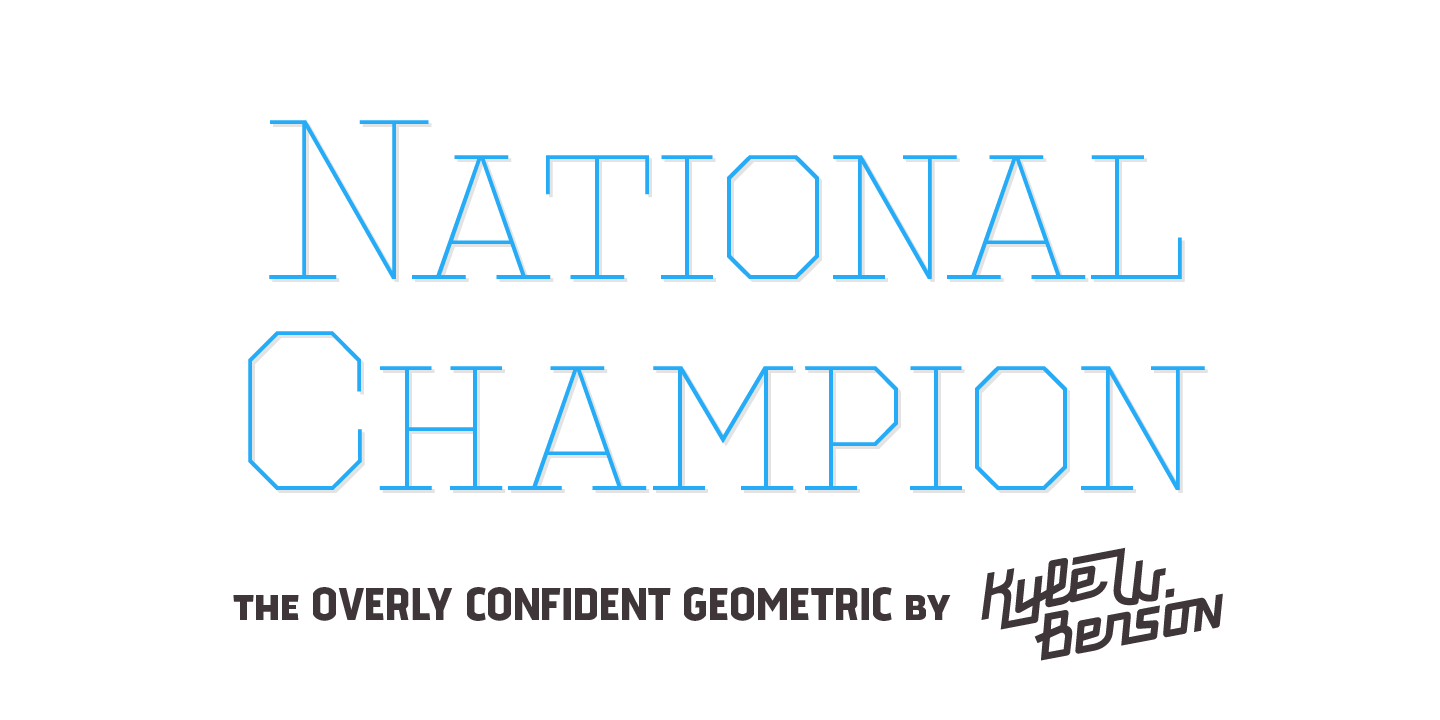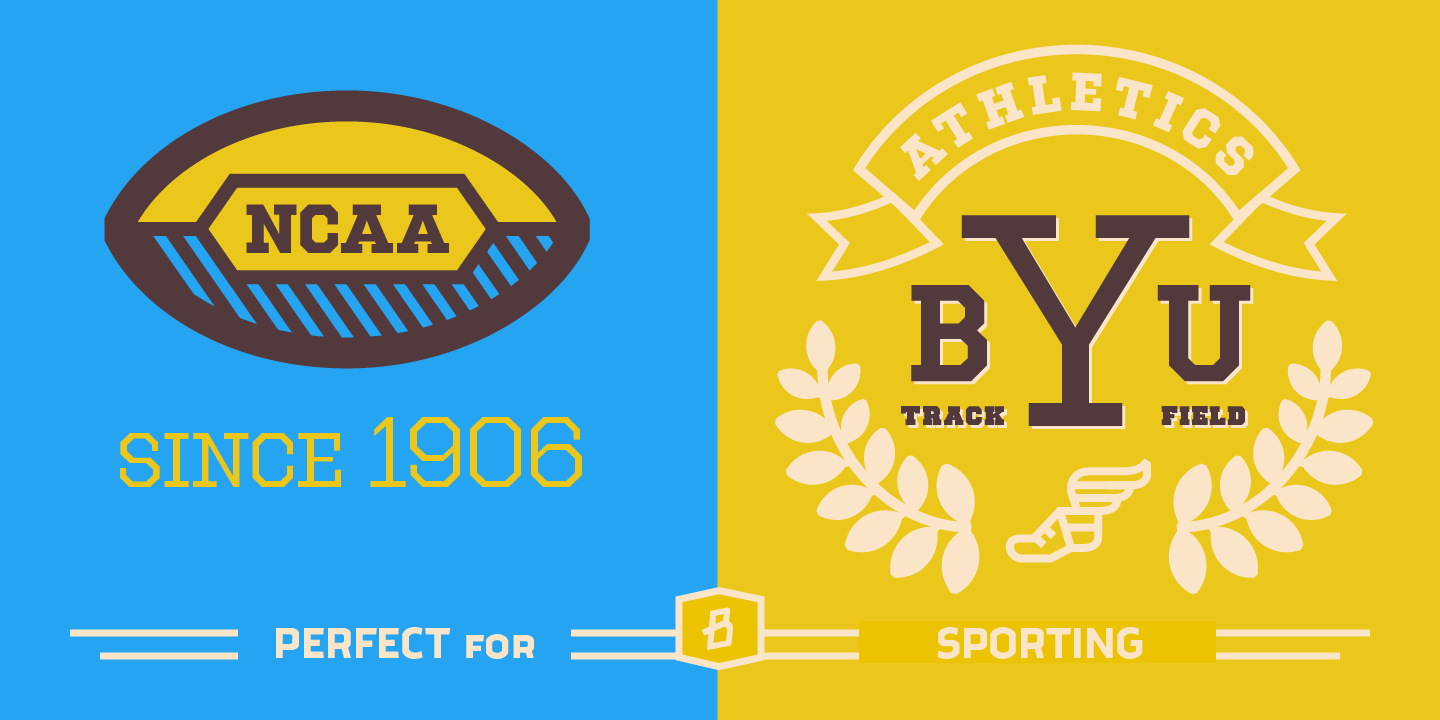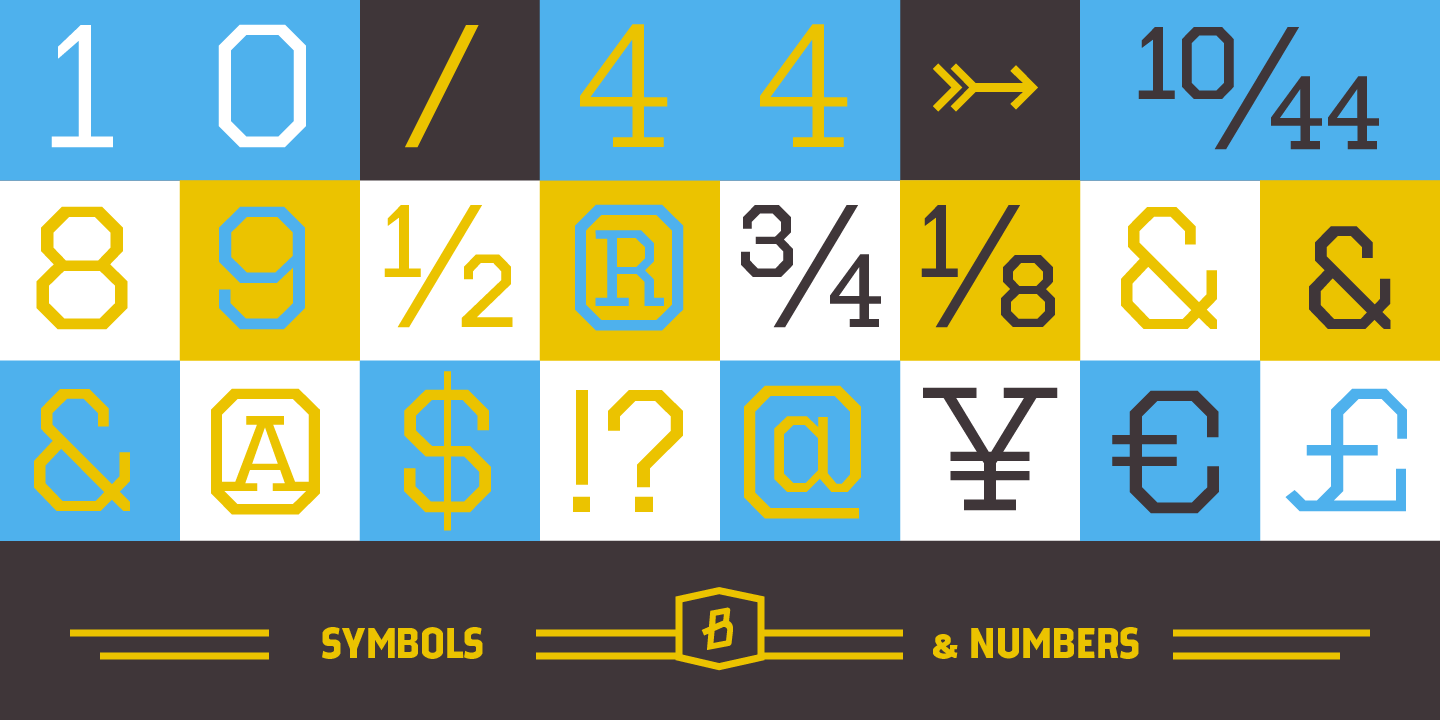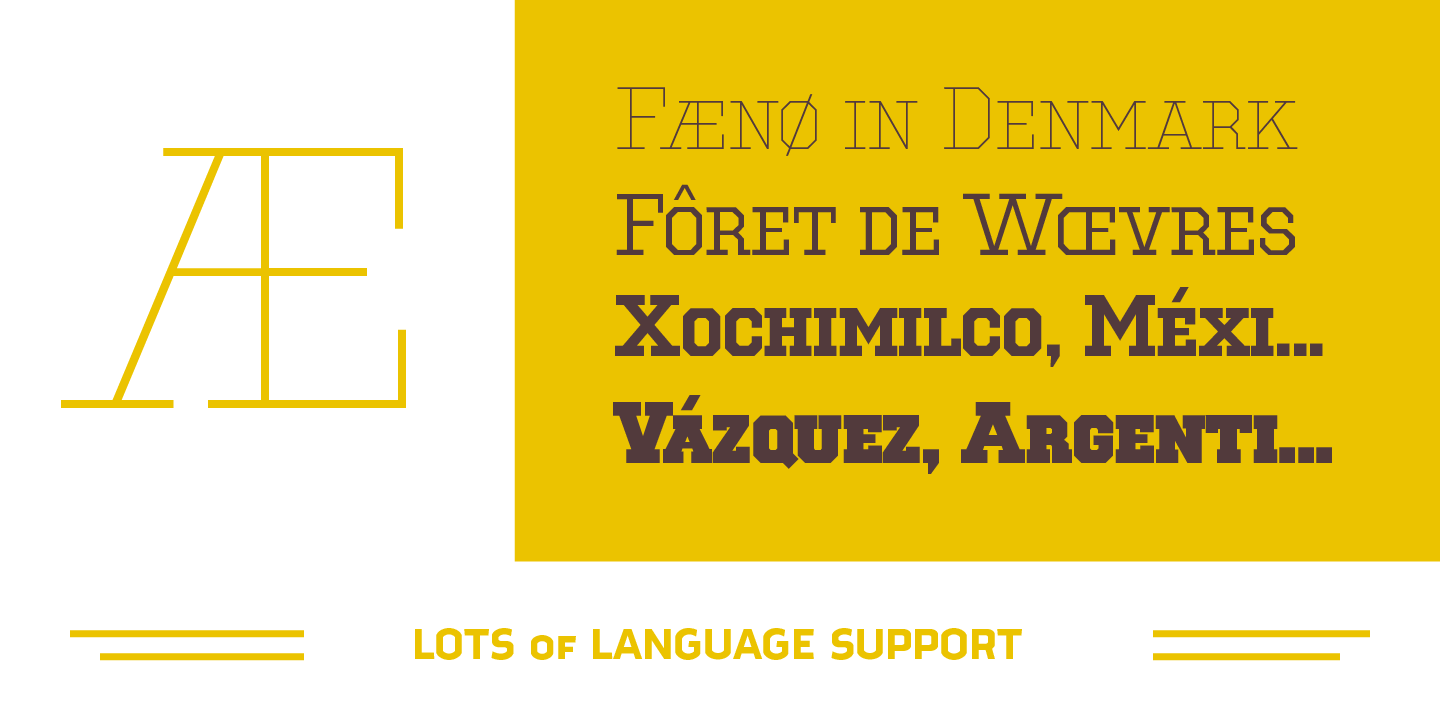
National Champion
Font Family by Kyle Wayne Benson
National Champion is an overly confident geometric slab that comes in four weights. He is best suited for those looking for a well colored, balanced and spaced font in the College genre. He's got a 3/4 cap lowercase, lots of language options, opentype fractions and meticulous hinting for web use.